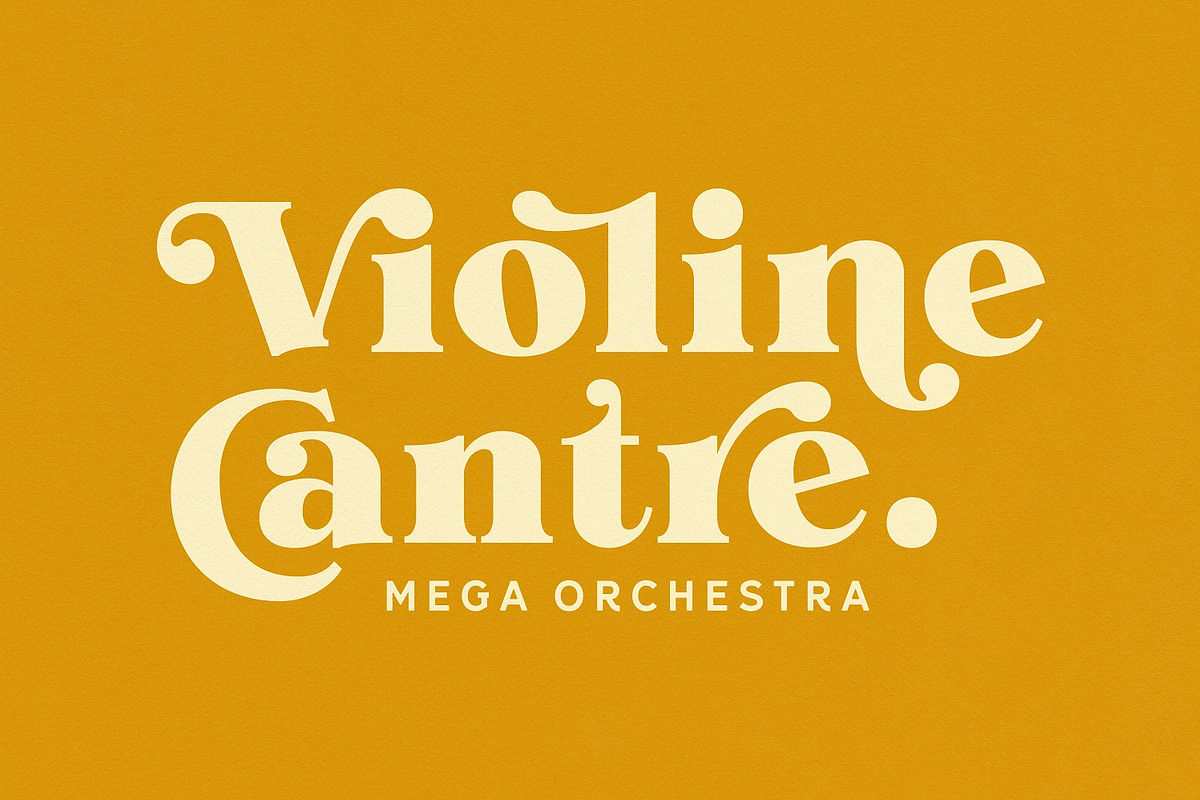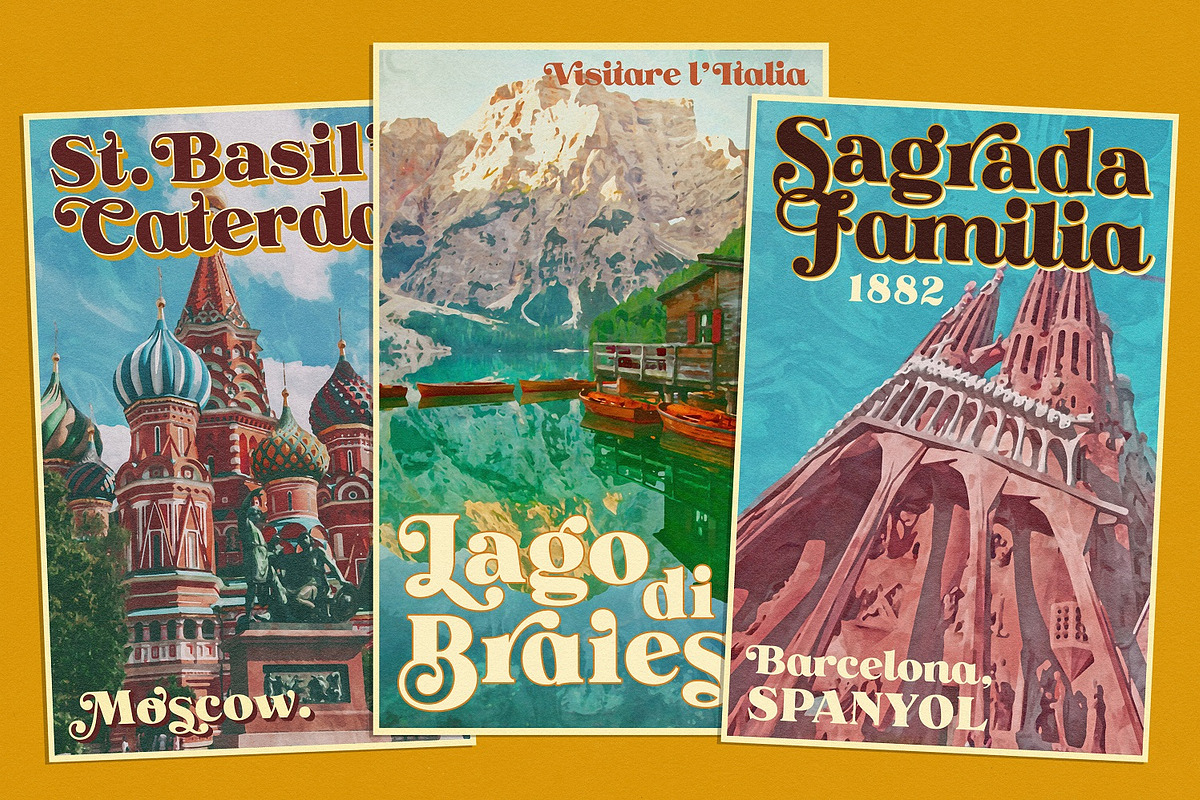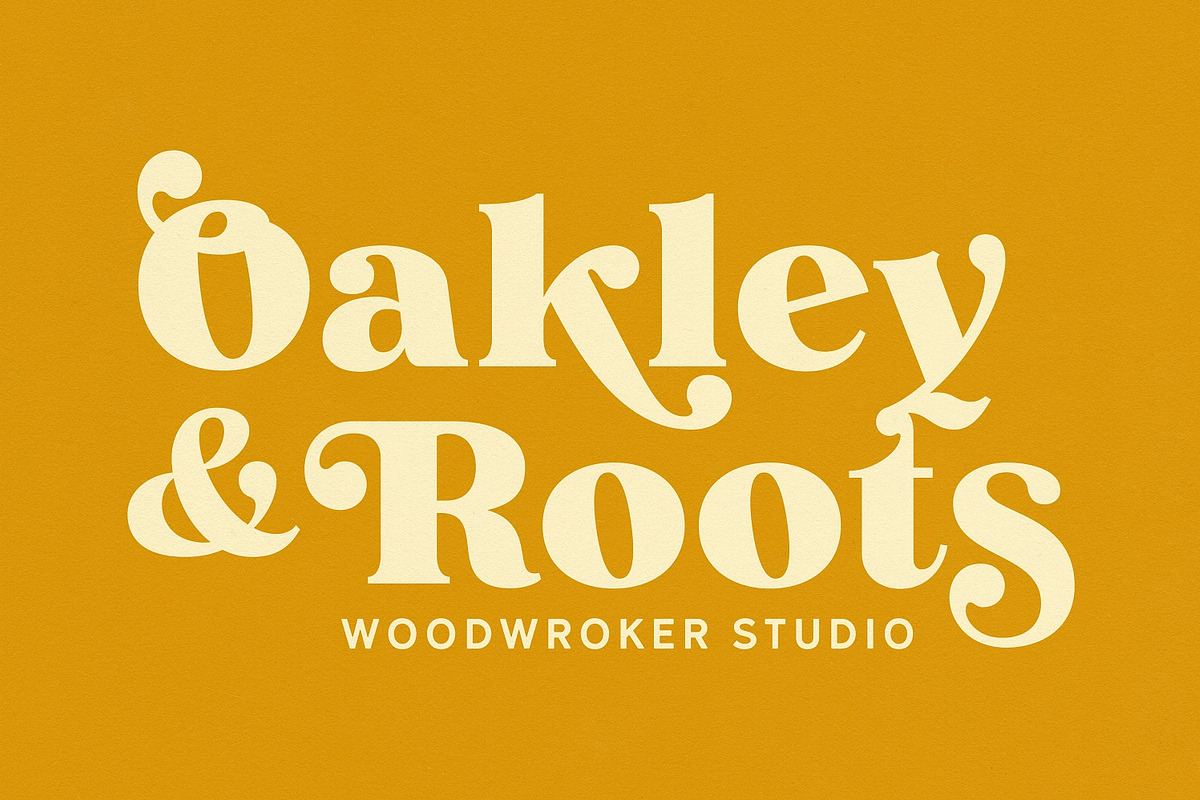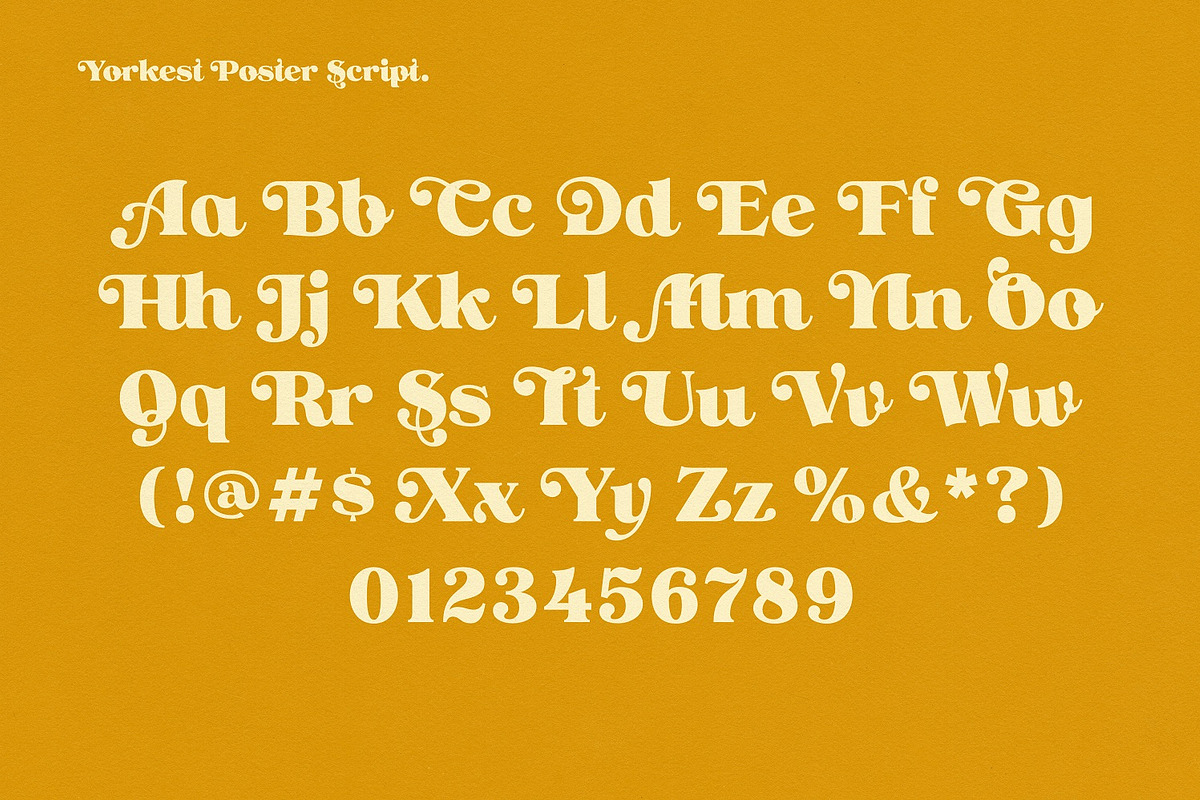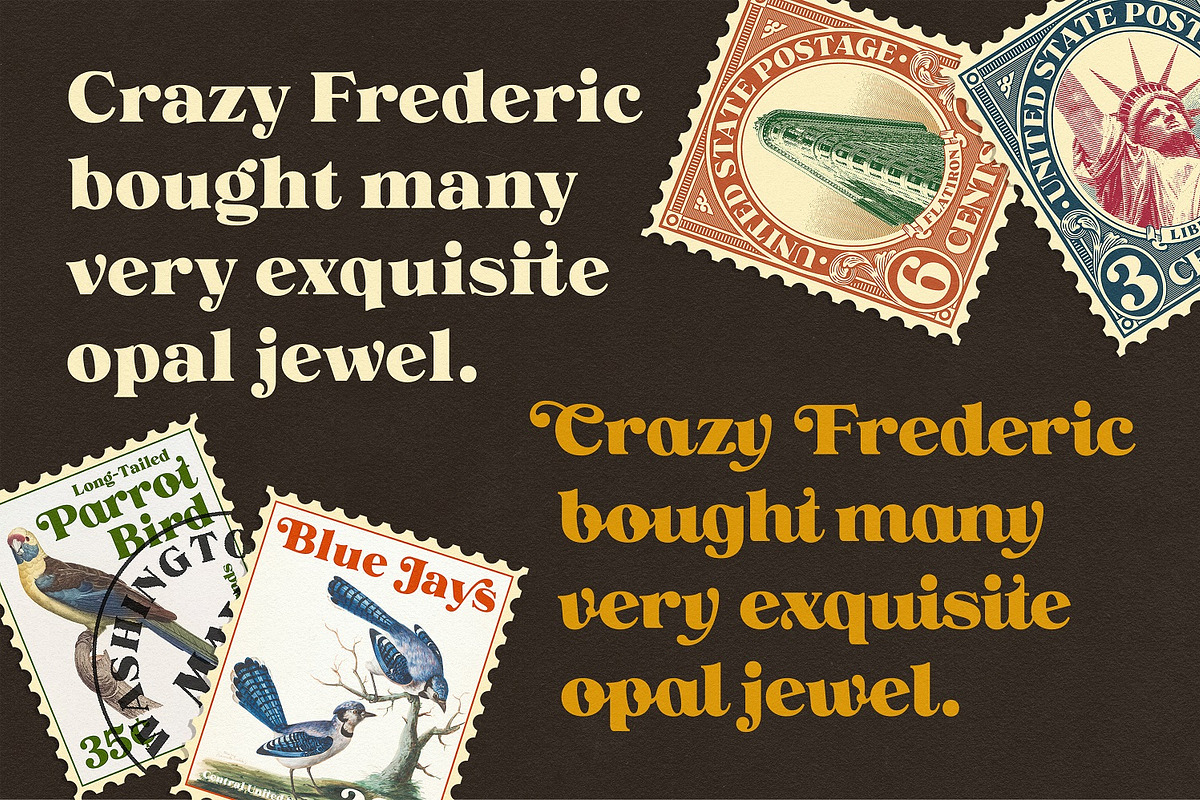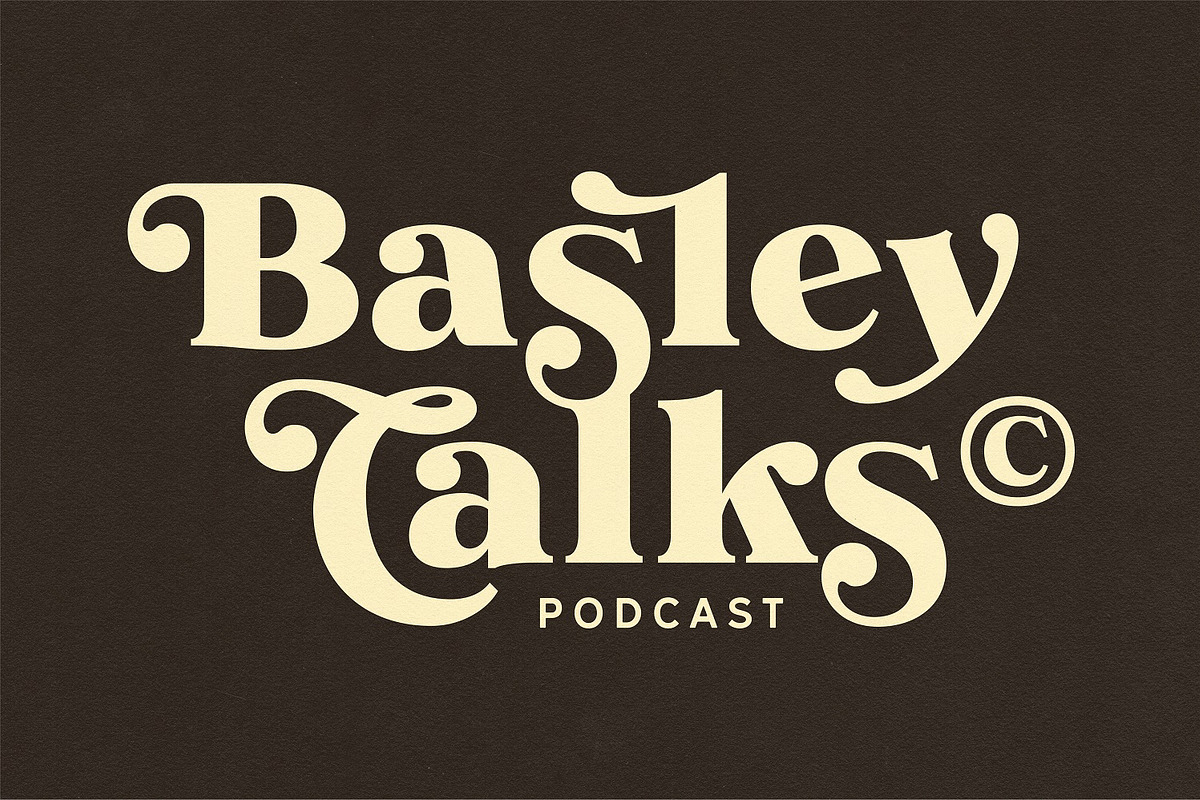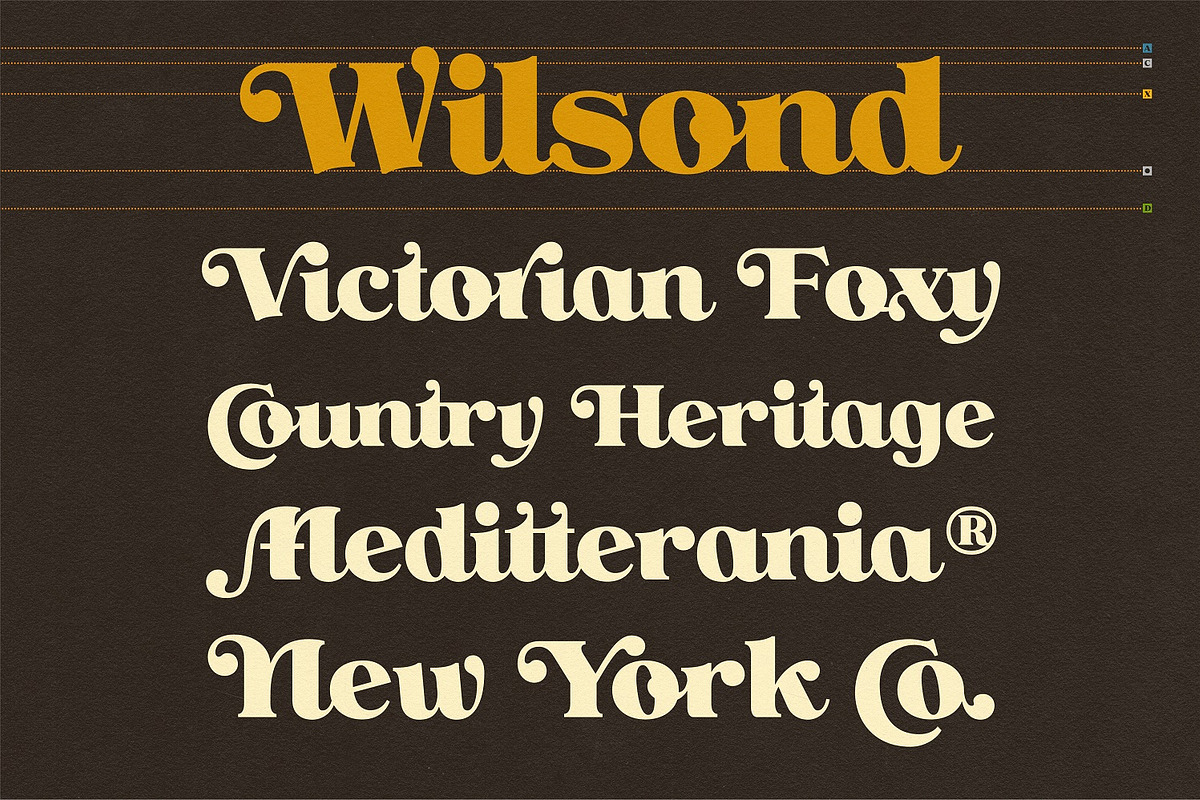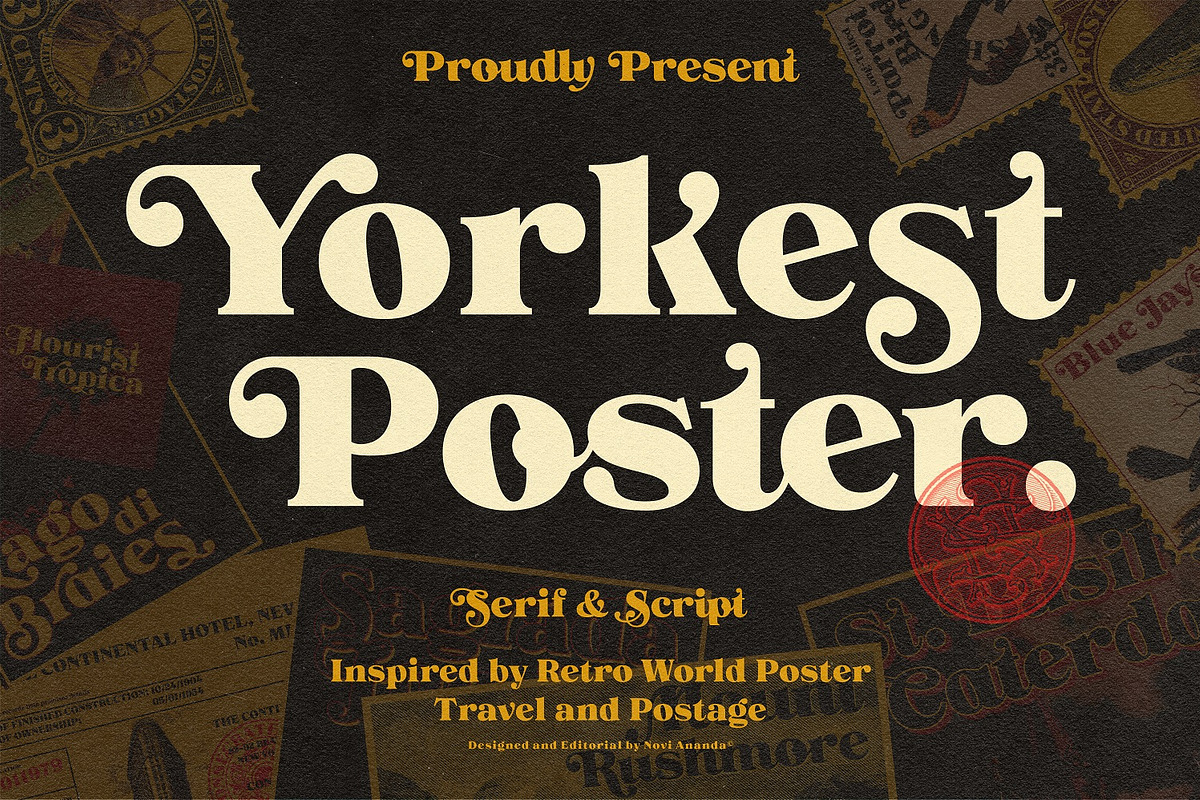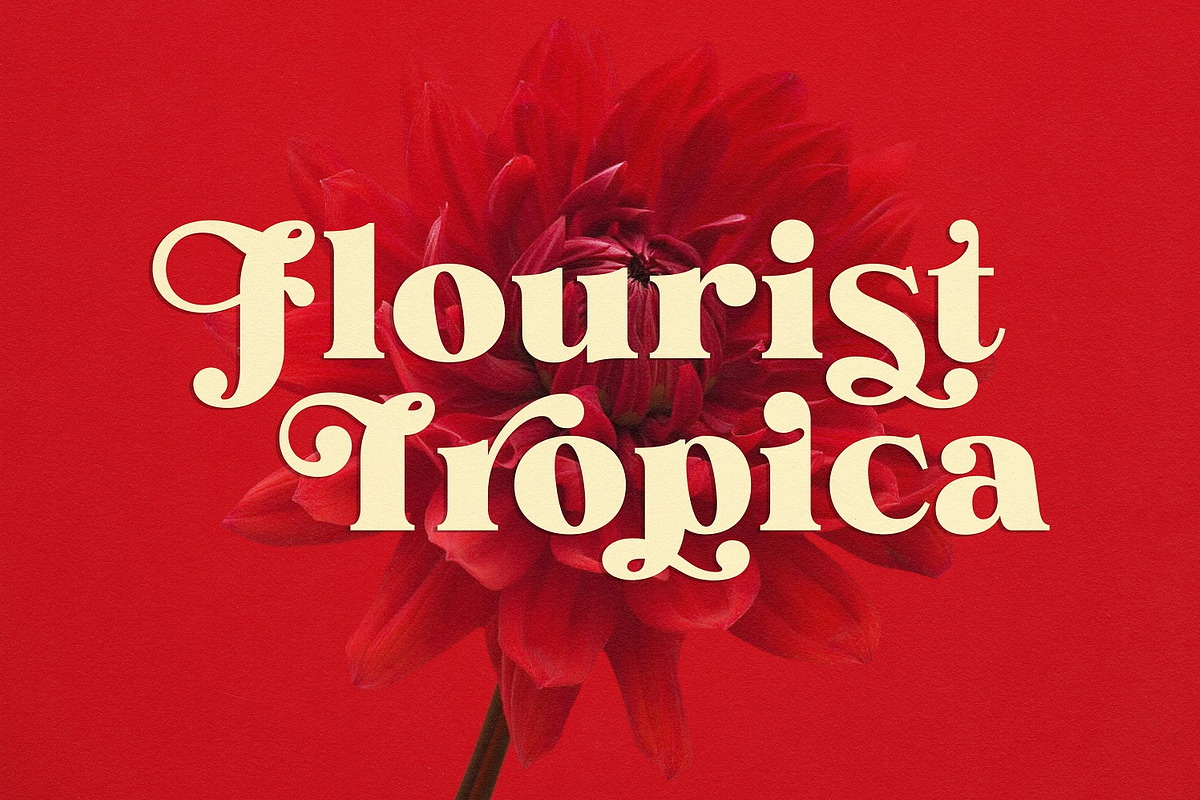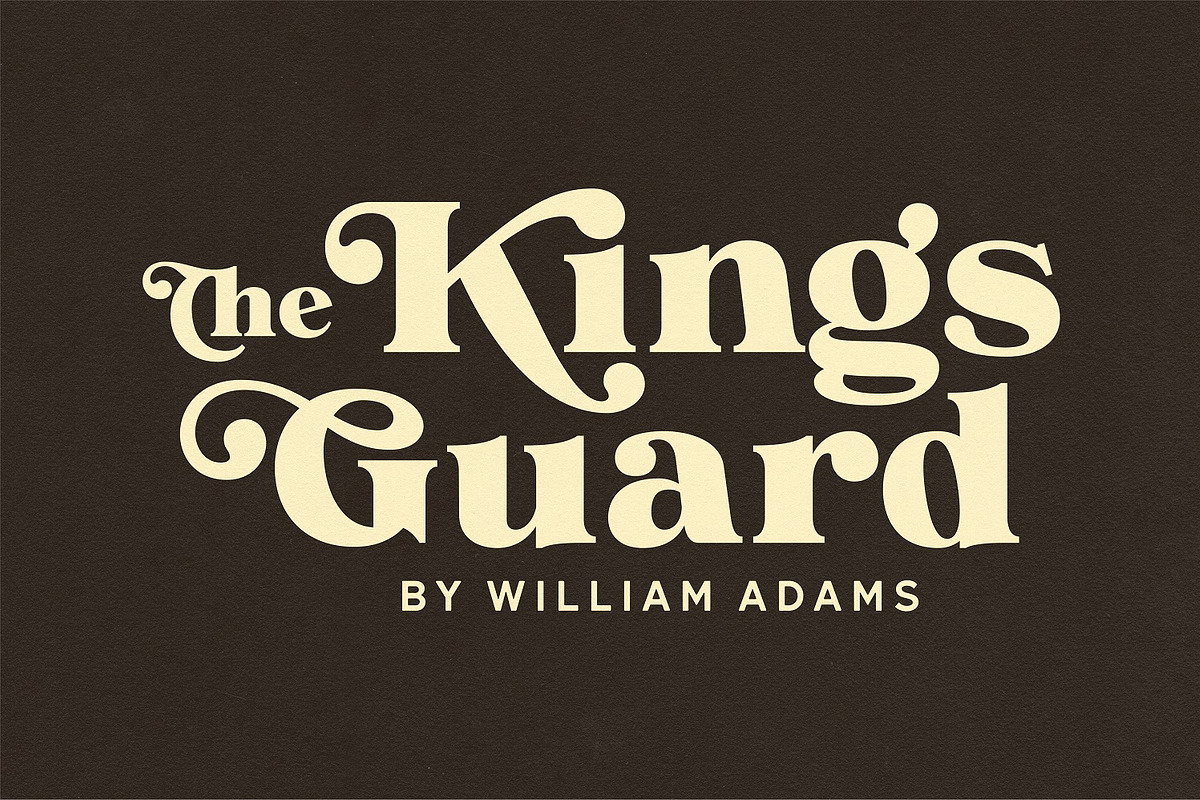
NS Yorkest Poster
Experience the around-the-world traveling vibes from the past with Yorkest Poster. It was inspired by the vintage retro national travel arts and printings from the 60s and 70s eras back in the day.
Comes along with 2 styles (Serif and Script) that would never go wrong to be paired. A pack of Stylistic Alternates features to give a personal touch to your design, and also Swashes to cover your visual needs to be stronger in every appearance.
Perfectly fit for logo design, headliner, signage, poster, postcard, title, postage stamp, and a lot of other printing works and stuff.